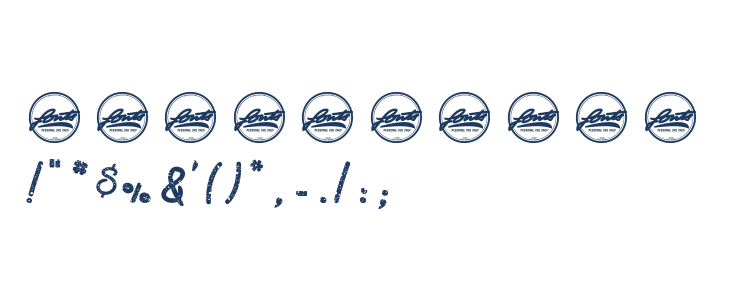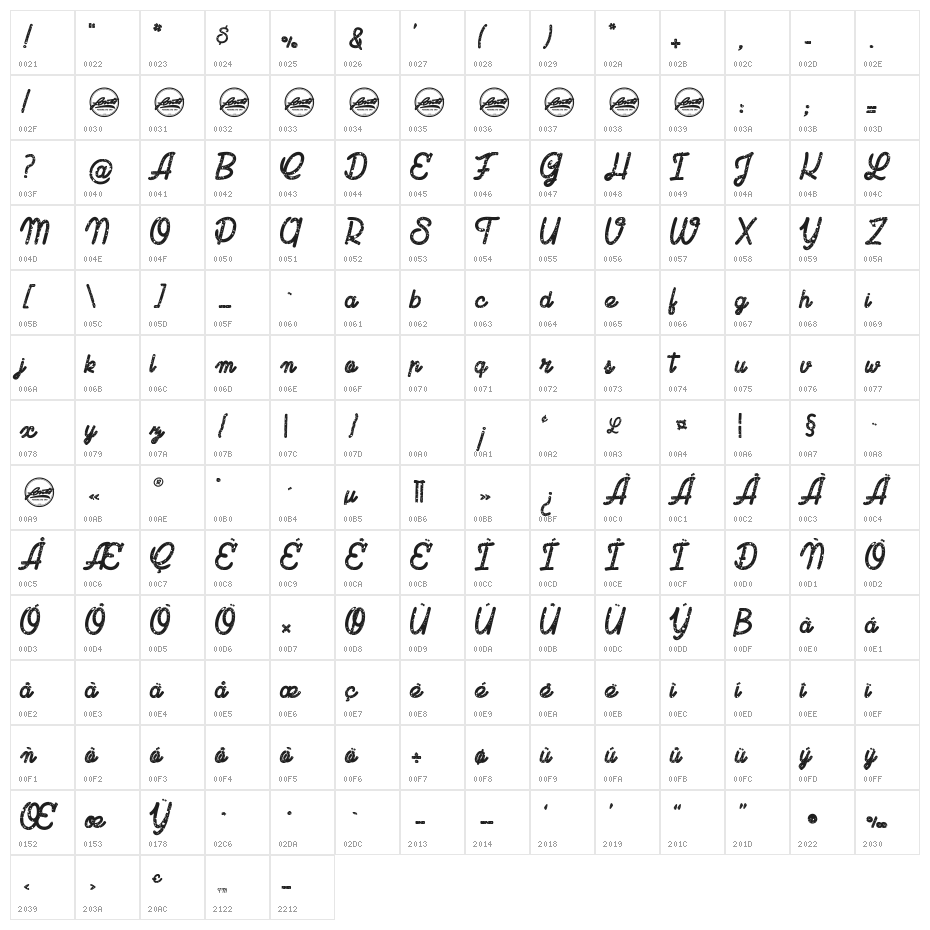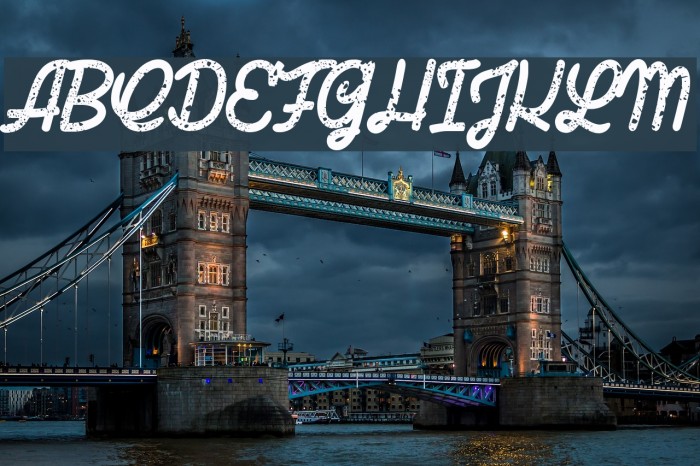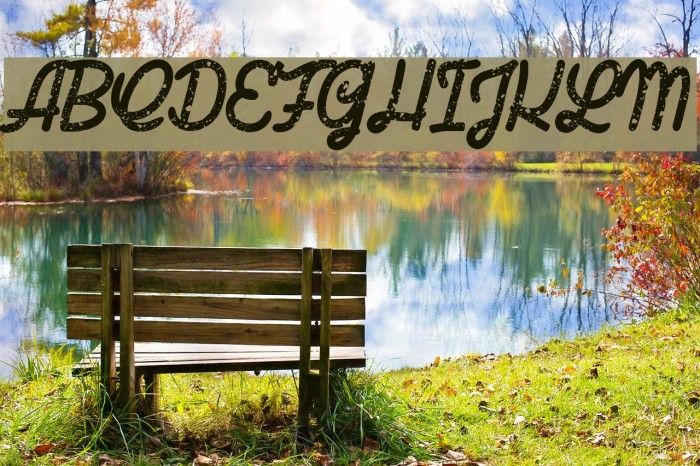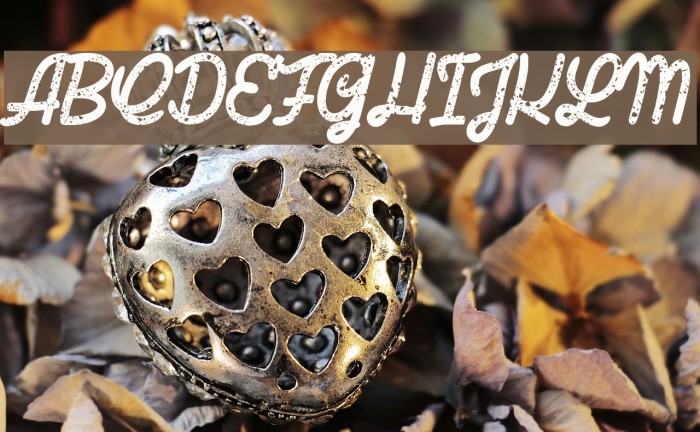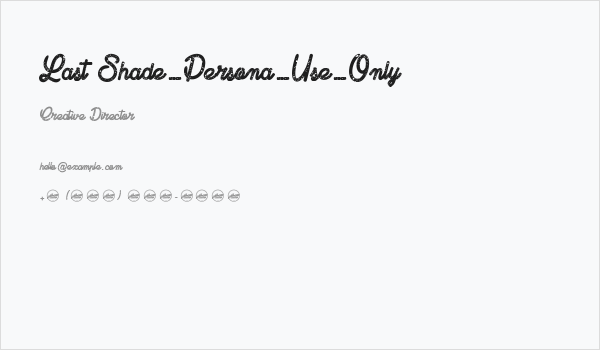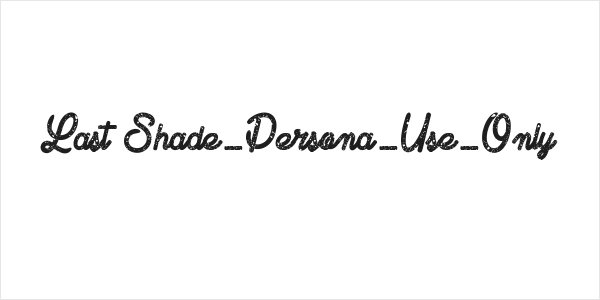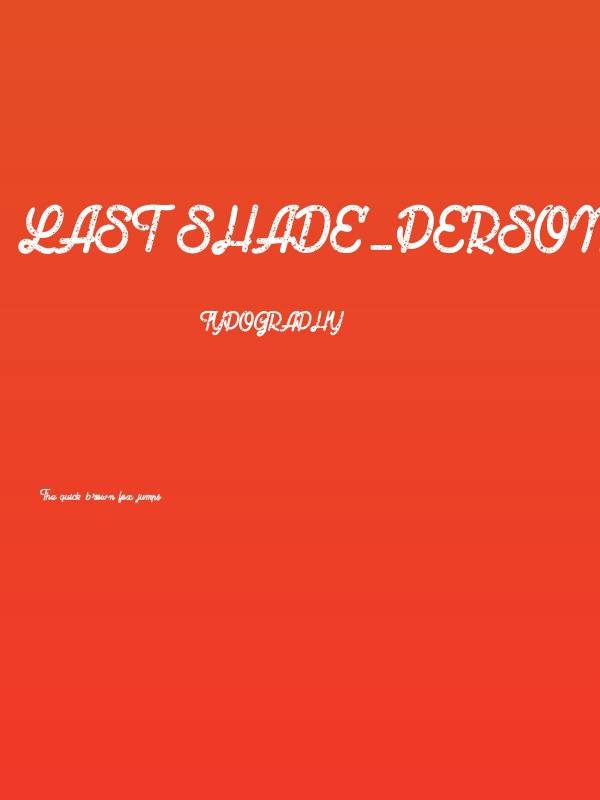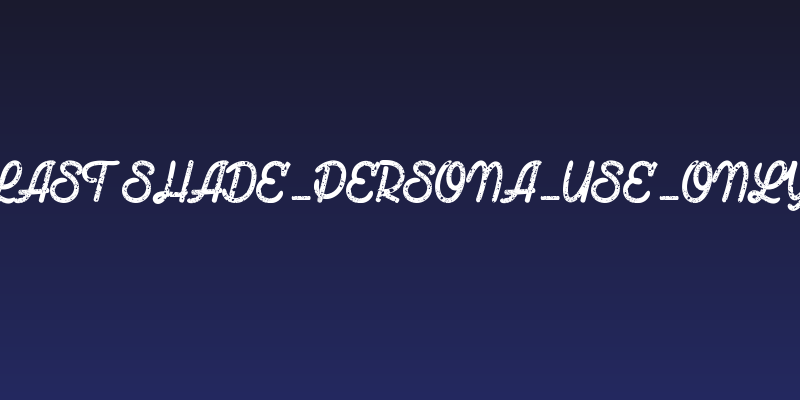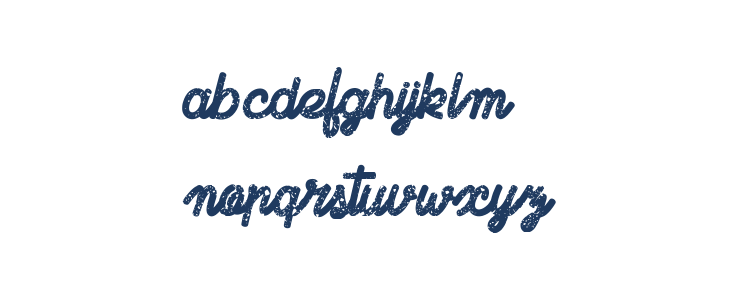
Last Shade_Persona_Use_Only Font
Last Shade_Persona_Use_Only Description
This font exhibits a bold, textured script style with a distressed, grunge-like appearance. The letters are connected, giving it a flowing, cursive look. The uppercase letters are prominent and maintain a consistent height, while the lowercase letters are slightly smaller but maintain the same textured style. The numbers and special characters follow the same design, ensuring uniformity across all characters. The texture adds a vintage and rugged feel, making it suitable for designs that require a handcrafted or retro aesthetic. The overall style is both artistic and expressive, with a strong emphasis on individuality and creativity.
| Proposed Projects | Ideal for branding, logos, posters, and any design requiring a vintage or handcrafted feel. |